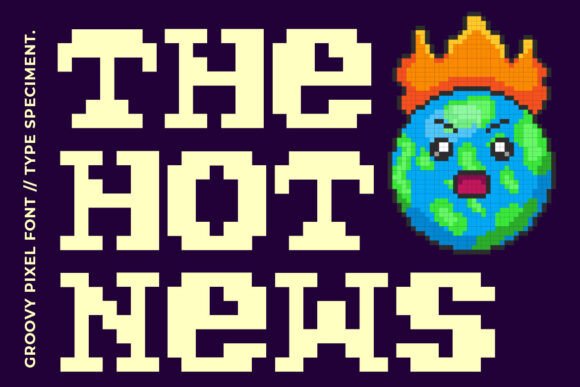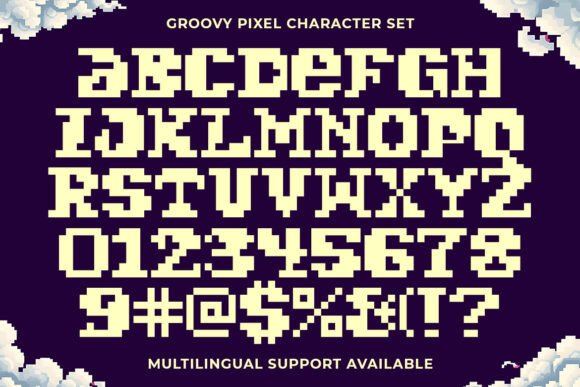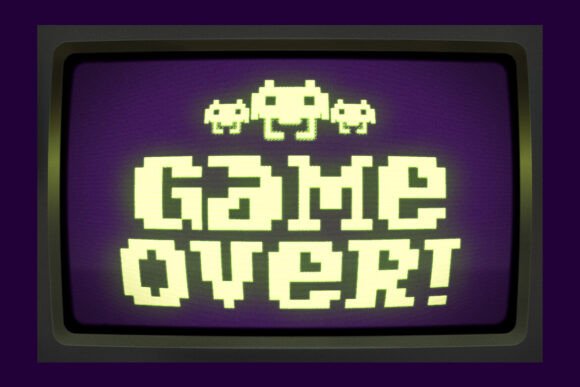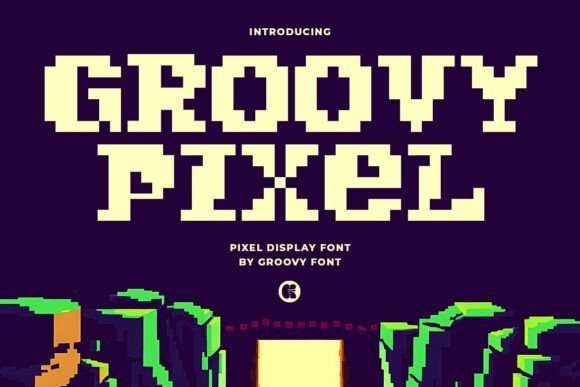
Step Back into the Retro Gaming Era with the Groovy Pixel Font
Do you ever find yourself reminiscing about the good old days of classic arcade games and pixelated graphics? For many of us, the nostalgia of retro gaming is a powerful trigger that sparks our creativity and inspires us to revisit the past. I still remember the thrill of conquering a level on my favorite childhood game, and the iconic pixelated fonts that accompanied me on my journey.
That’s exactly what the Groovy Pixel Font aims to capture – the essence of retro gaming’s nostalgic charm. This charming Pixel Display Font is designed to transport your designs back to the 8-bit and 16-bit eras, with its pixelated design and vintage vibe. Whether you’re working on a gaming project or simply want to add a touch of retro flair to your designs, the Groovy Pixel Font is the perfect choice.
Groovy Pixel Font Key Features
- Pixel Size: Offers a range of pixel sizes, including 8x, 16x, 24x, and 32x, making it suitable for various digital applications.
- Resolution: Designed for high-resolution displays, with a resolution of up to 300 DPI, ensuring crisp and clear text rendering.
- Unique Characteristics: Features a distinctive pixel art style with a retro aesthetic, making it perfect for video games, pixel art designs, and nostalgic applications.
- Character Set: Includes a comprehensive character set, including Latin, Cyrillic, and Greek alphabets, as well as a range of punctuation and symbol glyphs.
Groovy Pixel Font Review
First off, I love the retro vibe of Groovy Pixel Font ✨. The bold, pixelated aesthetic is a perfect fit for projects that need a nostalgic touch. The font is also highly customizable, with a range of size and color options to suit your needs. I particularly appreciate the seamless integration with popular design tools ✨.
- Wide range of customization options
- Perfect for retro-themed projects
- Seamless integration with popular design tools
However, I do have some concerns about the font’s limitations ⚠️. The character set is somewhat limited, which may not be suitable for projects that require a wide range of special characters. Additionally, the font may not be the best choice for projects that require a high level of readability ⚠️.
- Limited character set
- May not be suitable for projects requiring high readability
Overall, I think Groovy Pixel Font is a great choice for projects that need a bold, retro aesthetic. While it may have some limitations, the font’s customization options and seamless integration with design tools make it a valuable addition to any designer’s toolkit.
Tips for Getting the Most Out of Groovy Pixel Font
Use the Groovy Pixel Font to add a retro or pixel art touch to your designs.
Combine the font with other pixel art elements to create a cohesive look.
Use the Groovy Pixel Font for:
– Retro-style video game designs
– Pixel art graphics and illustrations
– Neon-lit signs and advertisements
– Digital art and graphic design projects
Alternatives to Groovy Pixel Font for Designers
1. Pixelated
Pixelated is a classic pixel font that resembles the early days of video games. It’s perfect for creating a retro aesthetic and can be used for logos, headings, or titles. Compared to Groovy Pixel Font, Pixelated is more minimalist and lacks the rounded edges, making it a better choice for a more pixelated look.
2. 8-Bit Pixel
8-Bit Pixel is another popular pixel font that’s designed to mimic the look of old video games. It’s great for creating a nostalgic feel and can be used for a wide range of design projects, from logos to social media graphics. Compared to Groovy Pixel Font, 8-Bit Pixel is more blocky and has a more distinct pixelated look.
Q: How do I customize the Groovy Pixel Font to fit my project’s needs?
The Groovy Pixel Font is designed to be highly customizable. You can adjust the font size, color, and spacing to fit your project’s aesthetic. Additionally, you can use the font’s built-in features, such as kerning and ligatures, to create a more polished and professional look. If you need to make more extensive customizations, you can also use font editing software, such as FontForge or Glyphs, to modify the font’s design.